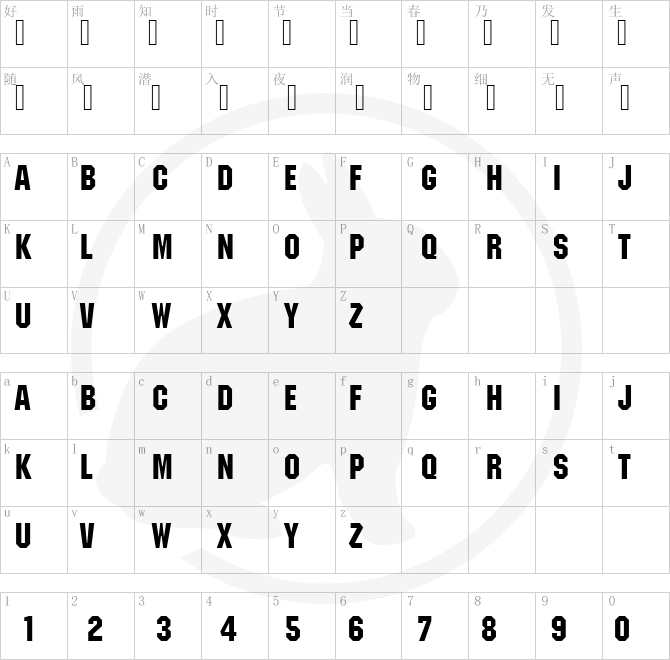
- Font Name:MachineItcDEE
MachineItcDEE.ttf is a very beautiful artistic font, MachineItcDEE.ttf is widely used in the design and printing of various books and pictures,MachineItcDEE.ttf has a strong visual impact,MachineItcDEE.ttf is a commonly used font in newspapers, magazines and books, and is used in posters, e-commerce Poster design, store design, logo design, font design and other fields.MachineItcDEE.